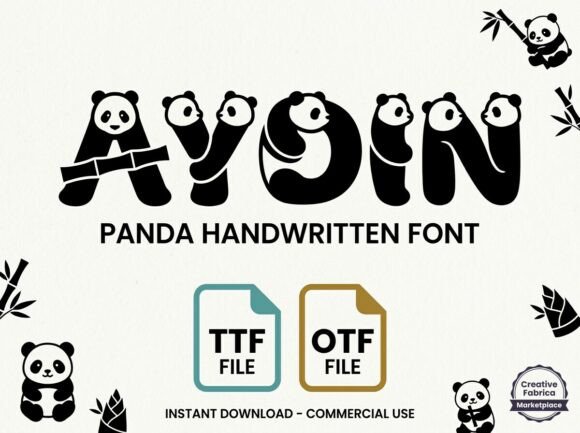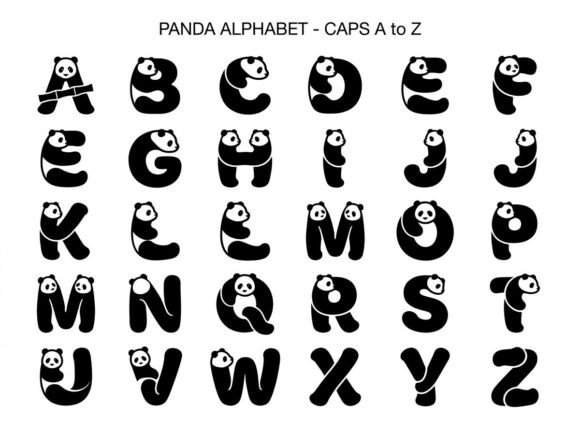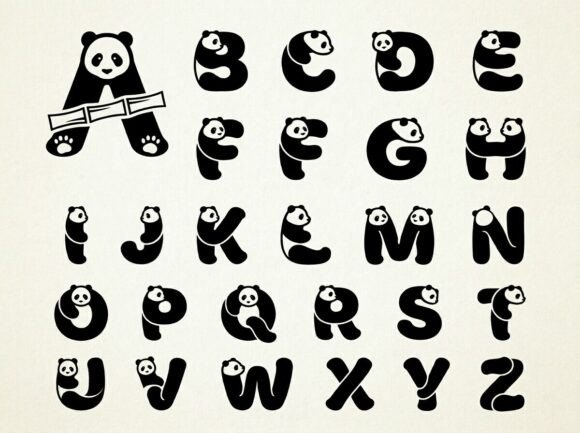
Introducing Aydin Font: The Ultimate Avant-Garde Display Typeface
In the world of typography, a font can make or break a design. For creators who refuse to blend in, Aydin Font is the perfect solution. This avant-garde decorative display font is engineered to be the focal point of any composition, boasting a commanding visual personality and unique artistic flourishes.
Unleash Your Creativity with Aydin Font
Aydin Font is characterized by its strong, artistic soul and high-end, polished finish. This typeface is crafted for designers and crafters who want to make a statement with their work. Whether you’re creating luxury packaging, experimental editorial layouts, or eye-catching posters and social media graphics, Aydin Font is the perfect choice.
Ideal for High-Impact Designs
Aydin Font is ideal for a variety of design applications, including:
- High-impact headlines that demand attention
- Signature logos and branding that require a unique touch
- Conceptual packaging that needs to stand out on store shelves
- Poster and social media design that requires a bold, eye-catching font
What Sets Aydin Font Apart
So, what makes Aydin Font unique? Here are a few key features:
- All-Caps Design: Aydin Font is an all-caps (uppercase only) display typeface, which means that every letter is carefully crafted to stand on its own as a unique work of art.
- Intricate Craftsmanship: By omitting lowercase characters, the designer has focused entirely on the intricate craftsmanship of every individual letter, ensuring each one is a masterpiece.
Tips for Using Aydin Font
To get the most out of Aydin Font, here are a few tips:
- Use it sparingly: Aydin Font is designed to make a statement, so use it sparingly to maximize its impact.
- Experiment with colors and textures: Aydin Font looks great with bold colors and textures, so don’t be afraid to experiment.
- Pair it with a neutral font: For body text, pair Aydin Font with a neutral font to create contrast and visual interest.
Aydin Font is the ultimate avant-garde display typeface for designers and crafters who refuse to blend in. With its commanding visual personality, unique artistic flourishes, and high-end, polished finish, this font is perfect for high-impact designs that demand attention. Whether you’re creating luxury packaging, experimental editorial layouts, or eye-catching posters and social media graphics, Aydin Font is the perfect choice.